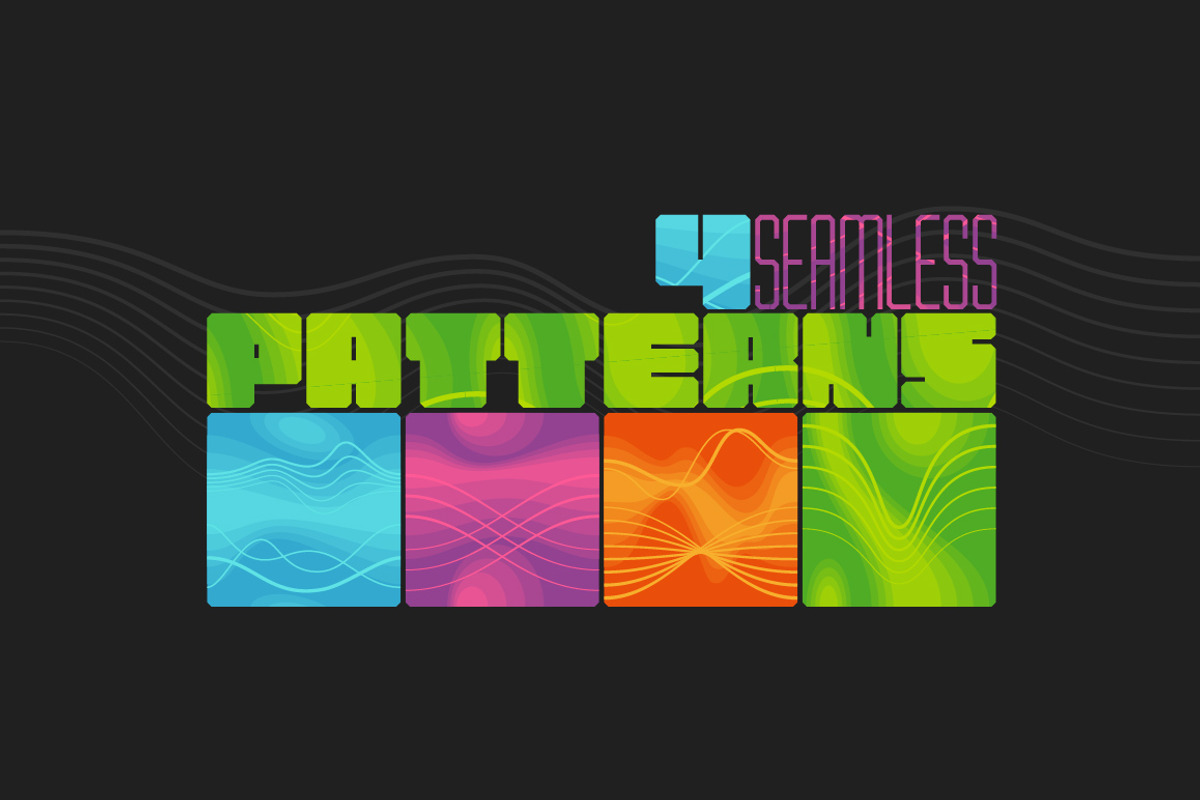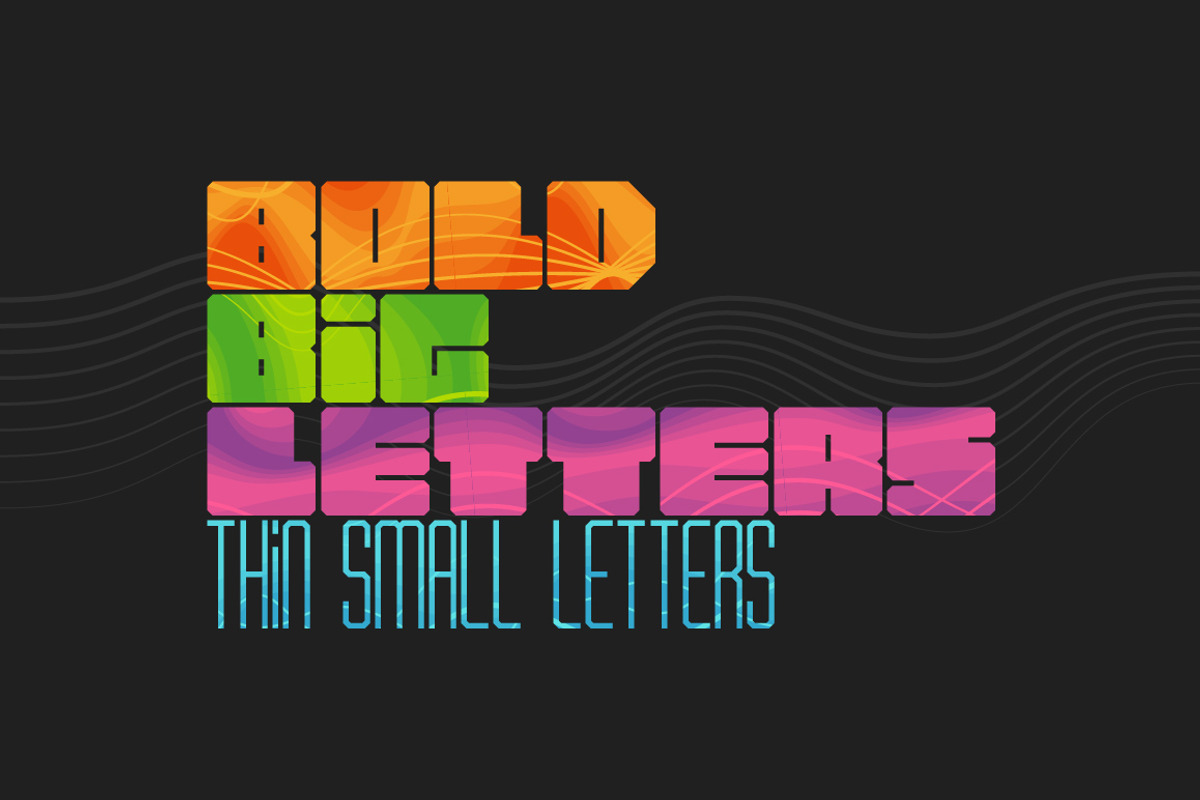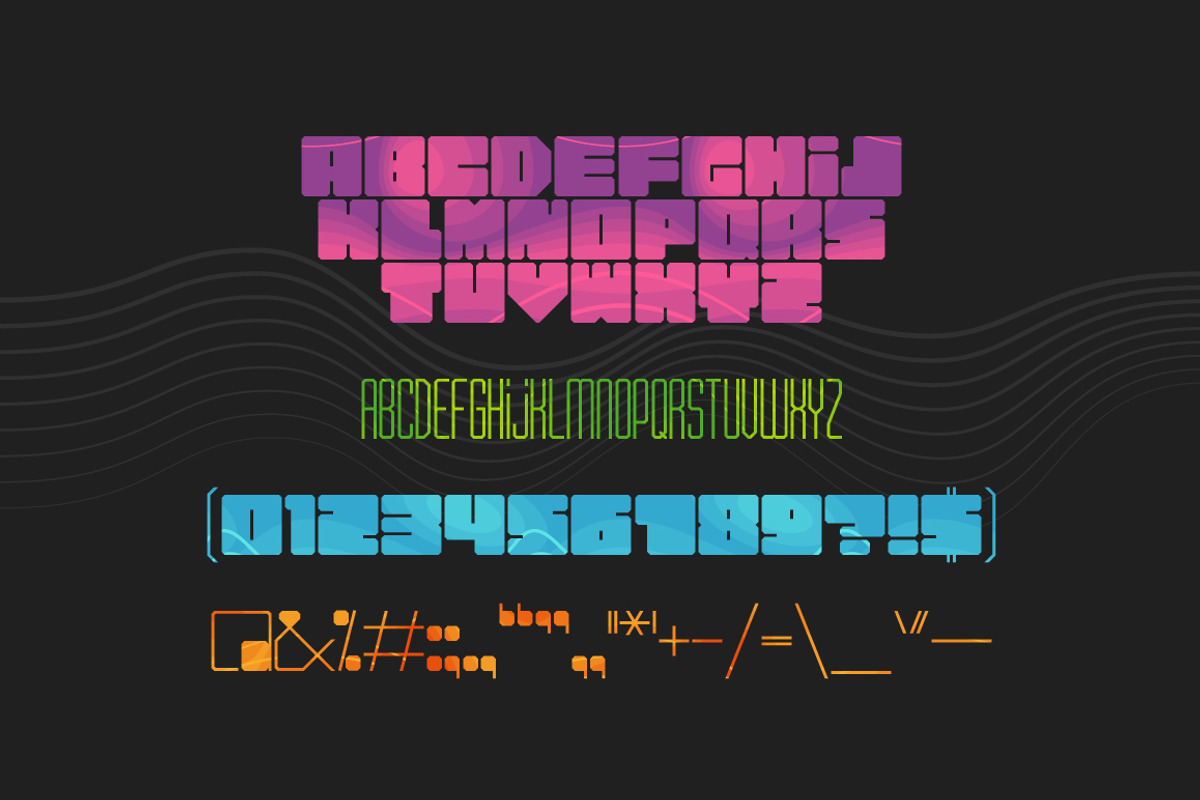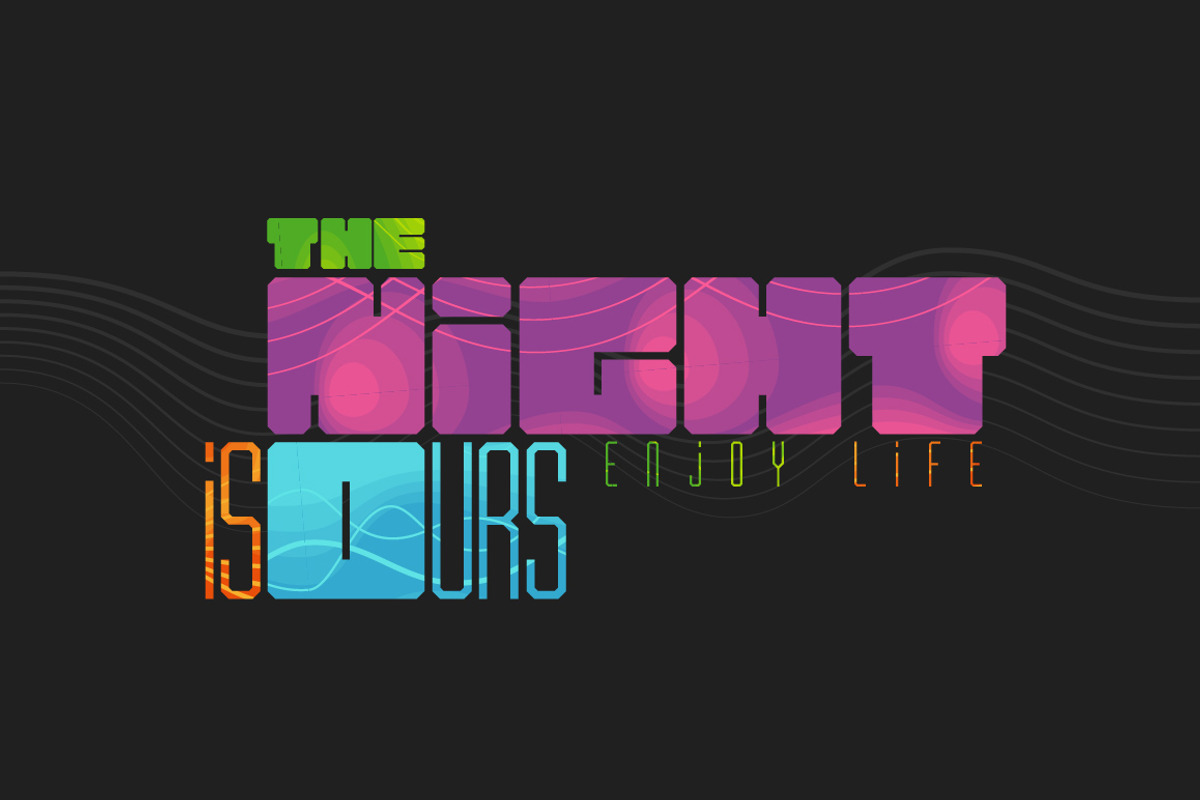
Inside the BOX Font & Patterns
Inside the BOX Font & Patterns by Gleb Guralnyk is a font selected for branding, posters, packaging, typography.
Why Inside the BOX Font & Patterns is worth a look
Inside the BOX Font & Patterns by Gleb Guralnyk fits naturally into Branding, posters, packaging, typography.